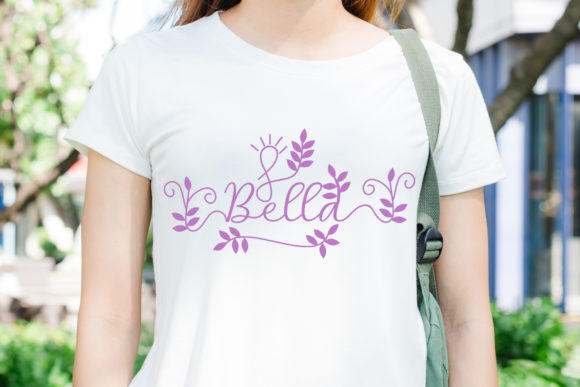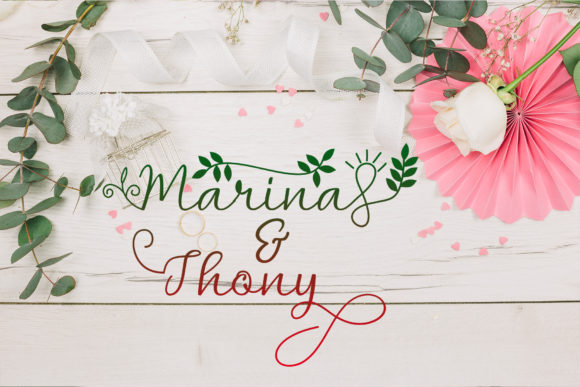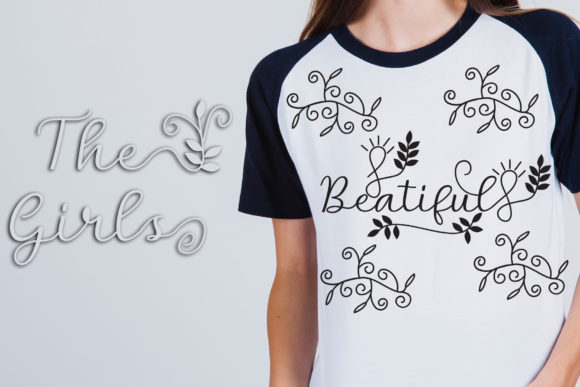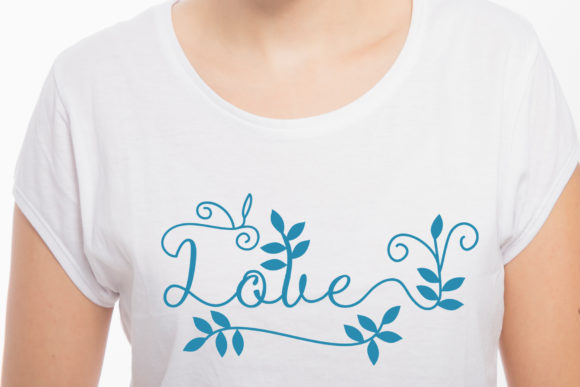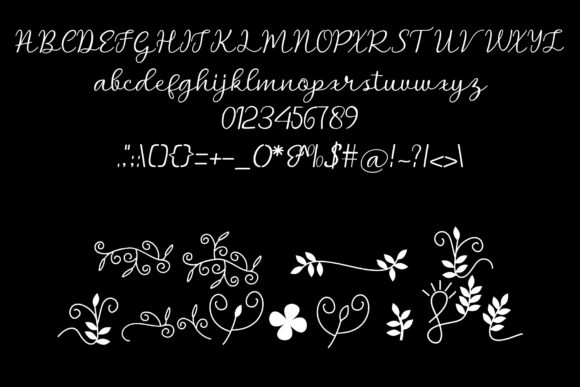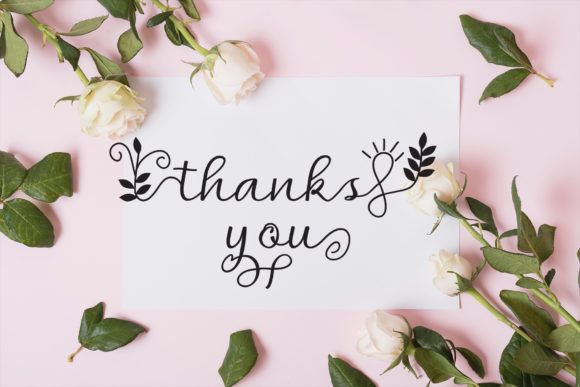
Bella Script Font: Elevate Your Designs with Organic Charm
Are you a designer or crafter looking for a unique and captivating font to add a touch of elegance to your projects? Look no further than the Bella Script Font. This stunning font combines a natural writing style with beautiful ornaments, inspired by the intricate details of leaves. The result is a script font that exudes organic charm and sophistication, perfect for a wide range of design ideas.
What Makes Bella Script Font Special?
Bella Script Font stands out from other script fonts due to its distinctive characteristics. Here are a few features that make it a must-have for designers and crafters:
- Natural Writing Style: Bella Script Font boasts a fluid, handwritten style that mimics natural writing. This gives your designs a personal and approachable feel, perfect for branding, packaging, and marketing materials.
- Beautiful Ornaments: The font is adorned with intricate ornaments inspired by leaves, adding a touch of whimsy and elegance to your designs. These ornaments can be used to create stunning headings, titles, and even decorative borders.
- Organic Charm: The combination of natural writing style and leaf-inspired ornaments gives Bella Script Font an unmistakable organic charm. This makes it ideal for designs that require a touch of earthiness, such as eco-friendly branding, botanical illustrations, and nature-inspired crafts.
Uses for Bella Script Font
The versatility of Bella Script Font makes it suitable for a wide range of design projects. Here are some ideas to get you started:
- Branding and Packaging: Use Bella Script Font to create eye-catching logos, labels, and packaging designs that stand out from the crowd.
- Stationery and Invitations: Add a touch of elegance to your stationery, invitations, and greeting cards with this beautiful script font.
- Digital Marketing: Use Bella Script Font in your digital marketing materials, such as social media graphics, email headers, and blog posts, to add a personal and creative touch.
- Crafting and Scrapbooking: Bella Script Font is perfect for crafters and scrapbookers looking to add a touch of sophistication to their projects.
Tips for Using Bella Script Font
To get the most out of Bella Script Font, here are some tips to keep in mind:
- Pair with Simple Fonts: Pair Bella Script Font with simple, clean fonts to create a striking contrast and make your designs pop.
- Experiment with Ornaments: Don’t be afraid to experiment with the font’s ornaments to create unique and eye-catching designs.
- Use for Headings and Titles: Use Bella Script Font for headings and titles to add a touch of elegance and sophistication to your designs.
In conclusion, Bella Script Font is a stunning script font that combines a natural writing style with beautiful ornaments inspired by leaves. Its organic charm and elegance make it perfect for a wide range of design projects, from branding and packaging to stationery and digital marketing. With its versatility and unique characteristics, Bella Script Font is a must-have for designers and crafters looking to elevate their designs and add a touch of sophistication.